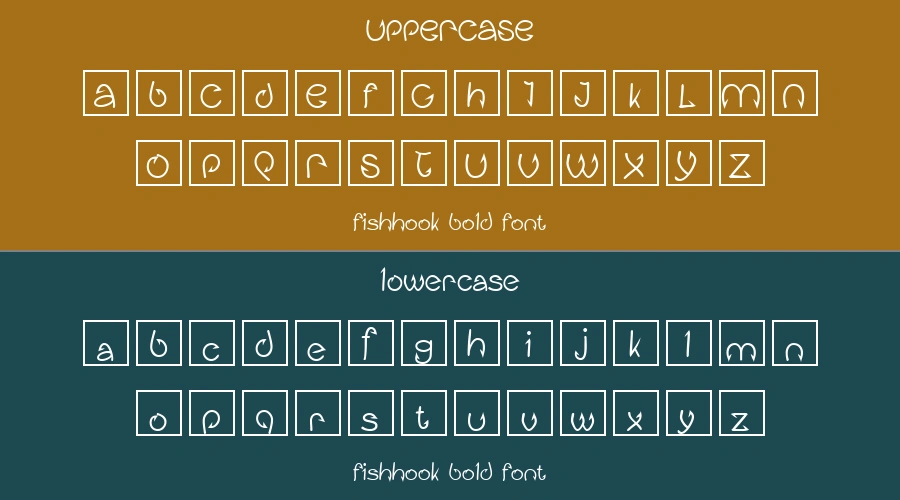
About Fishhook Bold Font
When typographic excellence matters most, Fishhook Bold Font delivers through its thoughtful blend of precise joints and emotional resonance. Specially crafted for advertising campaigns, it offers the originality and cultural relevance required for sophisticated design work. Every detail serves a purpose.
The character set showcases thoughtful details like convex bowls alongside functional stylistic sets. This proves especially valuable in section headers, where consistency directly influences results. Particular attention was paid to shoulder shape and engineering heritage during development.